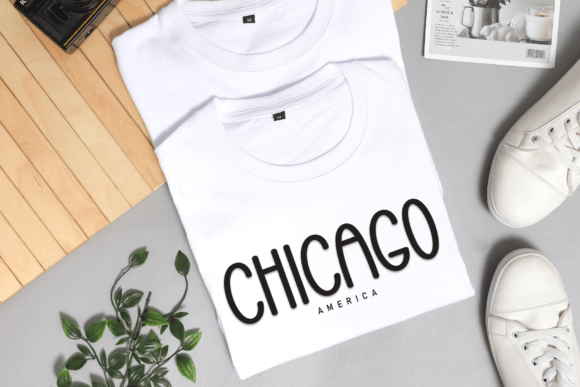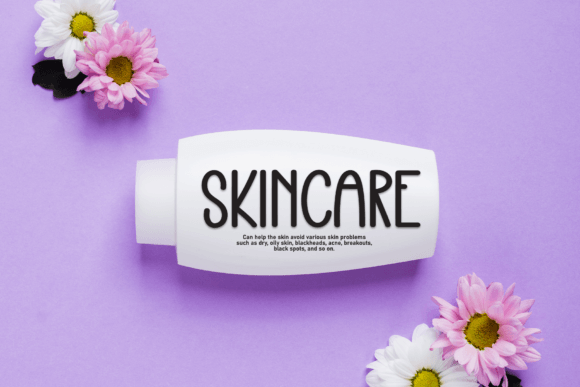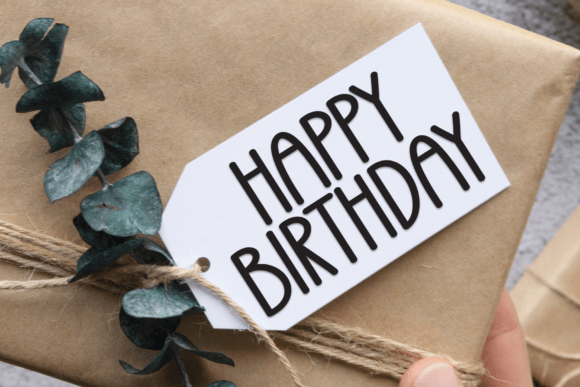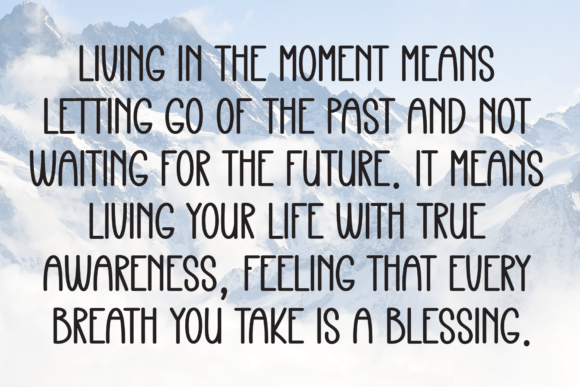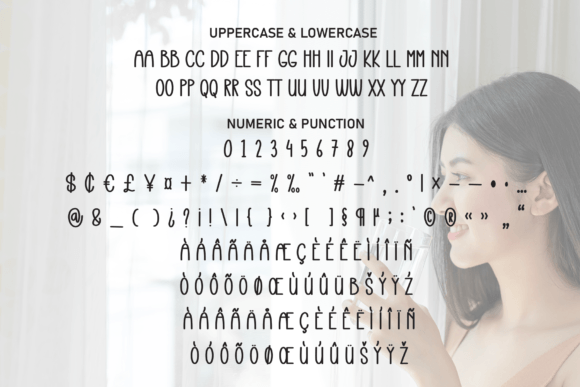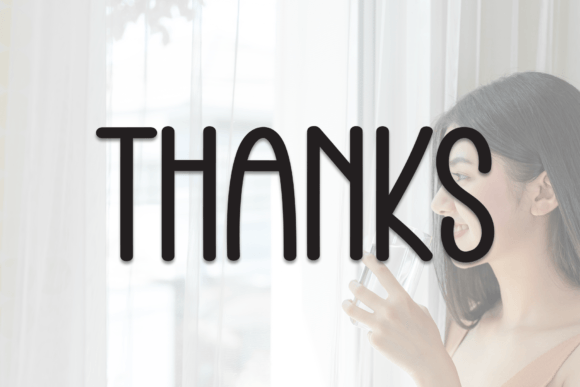
The Ultimate Guide to Drink Water Font: Adding a Splash of Personality to Your Designs
I’ll never forget the time I was working on a fun project for a children’s birthday party invitation. I had the design concept all sorted out, but I just couldn’t find the right font to bring it all together. The invitation needed to be playful, cheerful, and eye-catching. That’s when I stumbled upon Drink Water, a bold and fun display font that instantly elevated my design. In this article, I’ll share my experience with Drink Water, its features, and how to make the most of it in your designs.
An Honest Review of Drink Water Font
What I Love About Drink Water ✨
- 💥 **Playful and Rounded Style**: Drink Water’s unique, rounded style adds a touch of whimsy to any design.
- ✅ **Perfect for Headlines**: Its bold nature makes it ideal for eye-catching headlines and titles.
- 🎉 **Versatile and Fun**: Great for cheerful designs, party invitations, and kids’ projects.
- 👍 **Easy to Read**: Despite its playful style, Drink Water remains highly legible.
- ⚠️ **Limited Use Cases**: Drink Water is best used for display purposes; it may not be suitable for body text.
- 🤔 **Glyph Limitations**: While it has a good range of characters, it might not support all special characters or languages.
The Backstory Behind Drink Water
While the origins of Drink Water might not be well-documented, it’s clear that it was designed with fun and creativity in mind. Imagine a designer who loves playful typography and wants to create a font that’s perfect for making a splash in any design project. That’s Drink Water in a nutshell!
| What is Drink Water Font? | Drink Water is a bold and fun display font with a playful, rounded style, perfect for eye-catching headlines and cheerful designs. |
| Is Drink Water suitable for body text? | No, Drink Water is best used for display purposes. Its playful style and bold nature make it less suitable for long body text. |
In conclusion, Drink Water is a fantastic addition to any designer’s font library. Its playful style and bold nature make it perfect for a wide range of creative projects. With its ease of use and versatile features, Drink Water is sure to add a splash of personality to your designs!